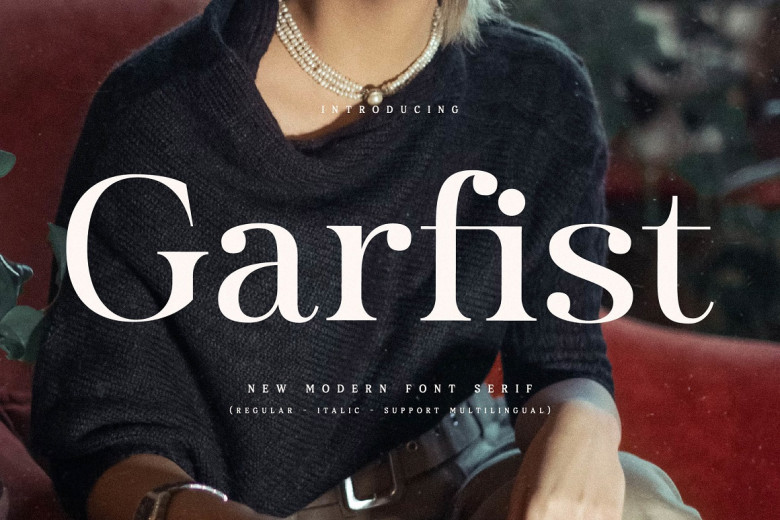
Garfist Font
Garfist is a modern, classic and unique typeface boasts an eye-catching serif font style and can be used for luxurious logos, fashion brands, magazine design projects, clothing quotes or letters to book titles.
Garfist Serif Typeface